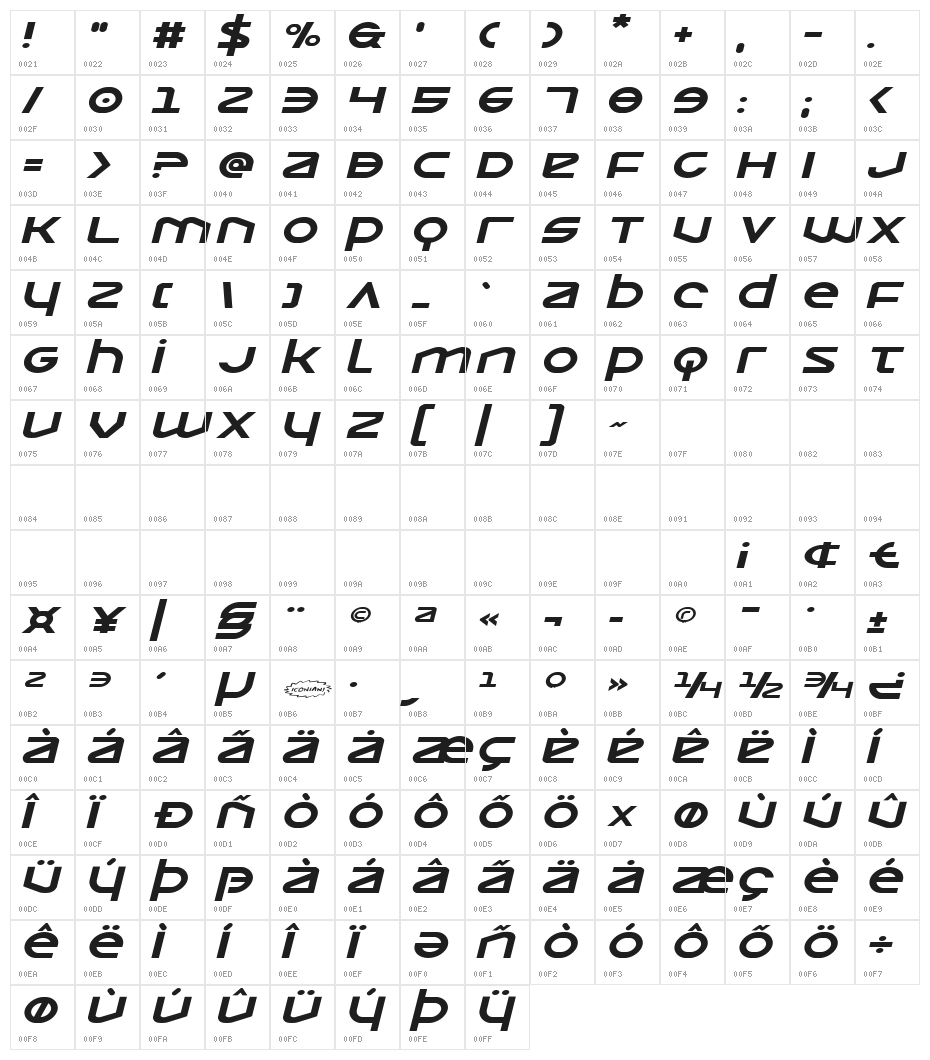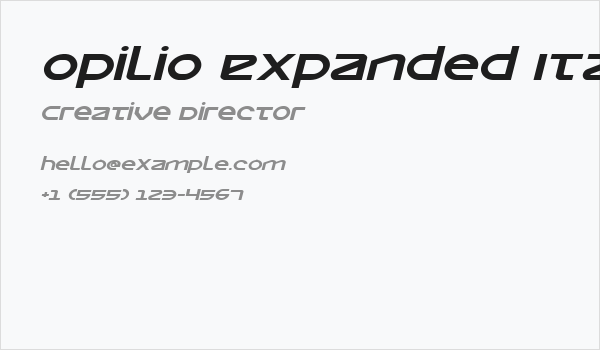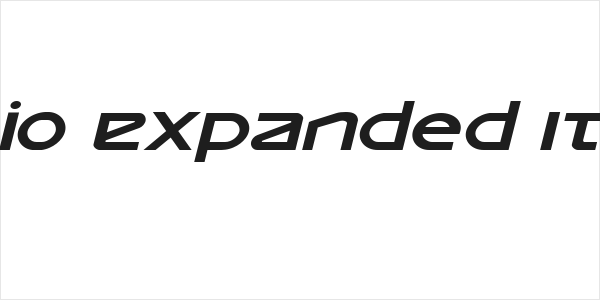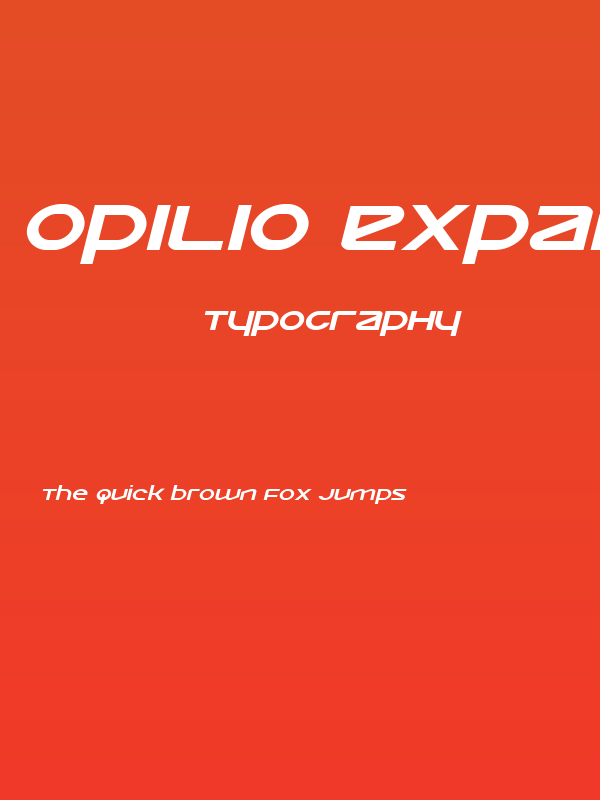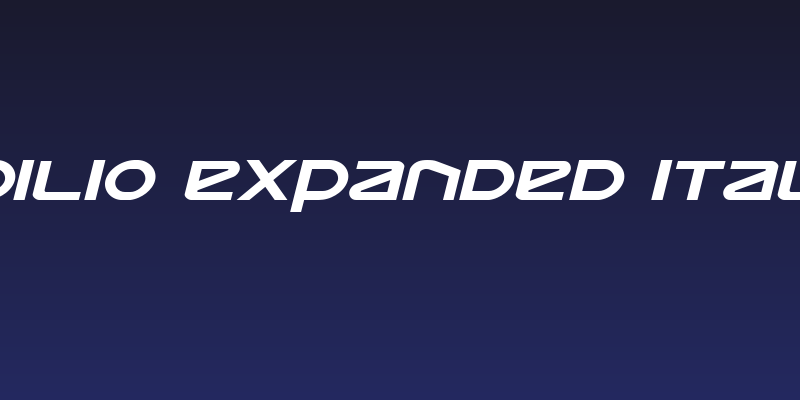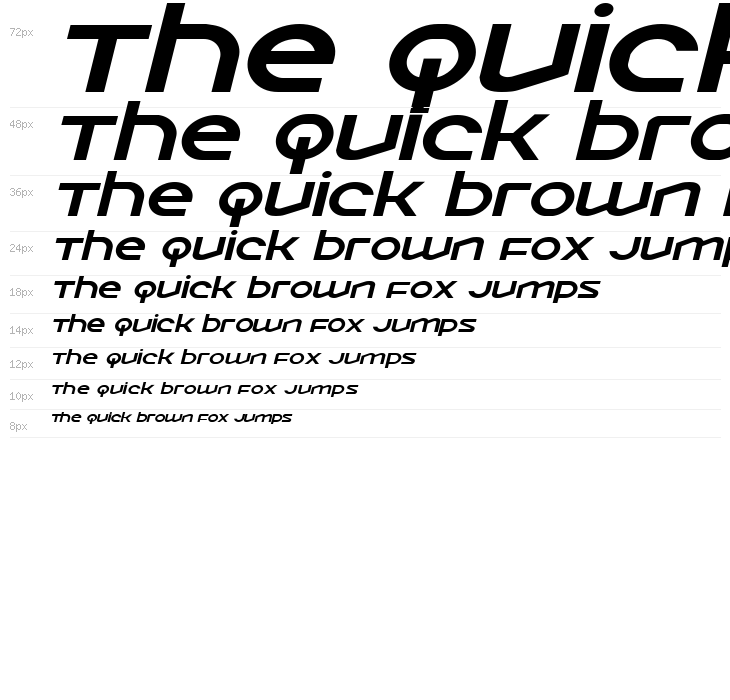
Opilio Expanded Italic Font
This font features a modern and dynamic design with an italicized style that gives it a sense of motion and energy. The characters are expanded, providing a wide stance that enhances readability while maintaining a unique aesthetic. The angular and geometric shapes of the letters contribute to a futuristic and tech-inspired look. The font includes both uppercase and lowercase letters, numerals, and a variety of special characters, making it versatile for different design needs. Its bold presence and distinct style make it suitable for attention-grabbing headlines and creative projects.
Proposed ProjectsIdeal for technology branding, sports team logos, dynamic posters, and modern web design.